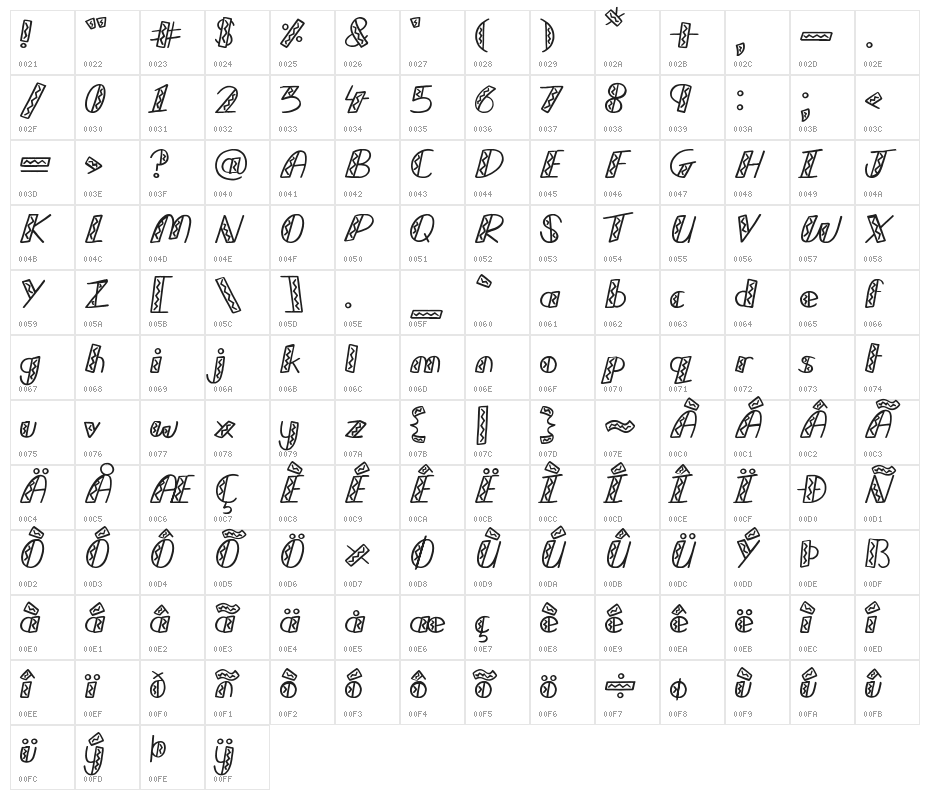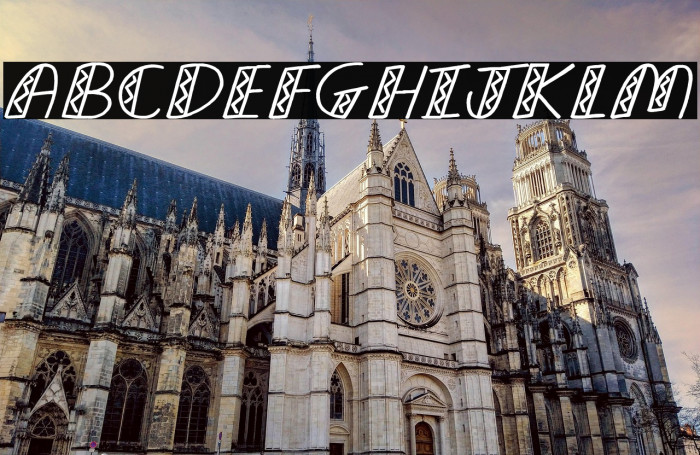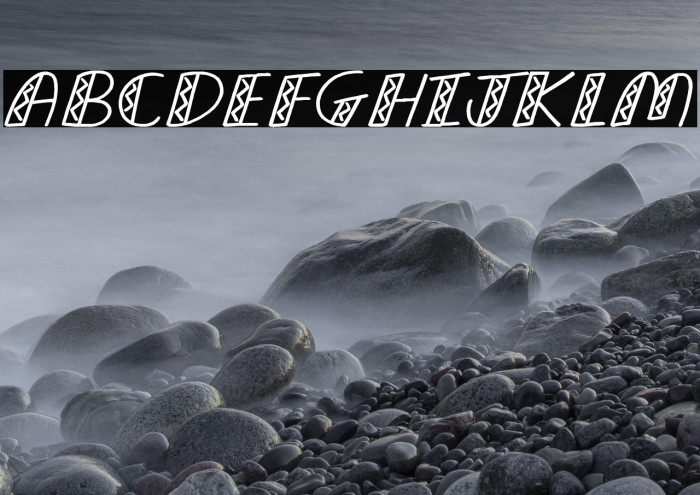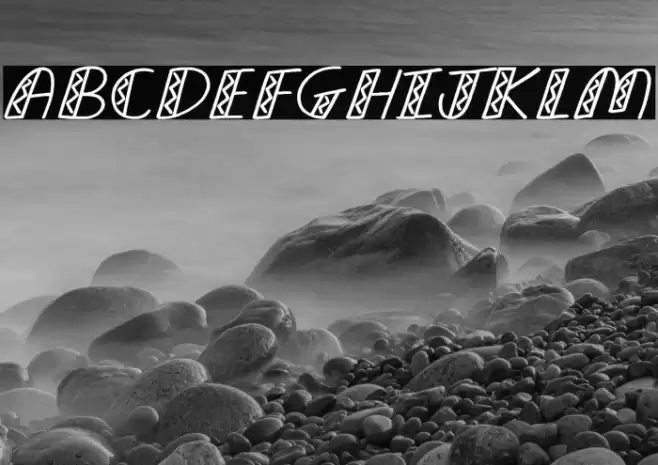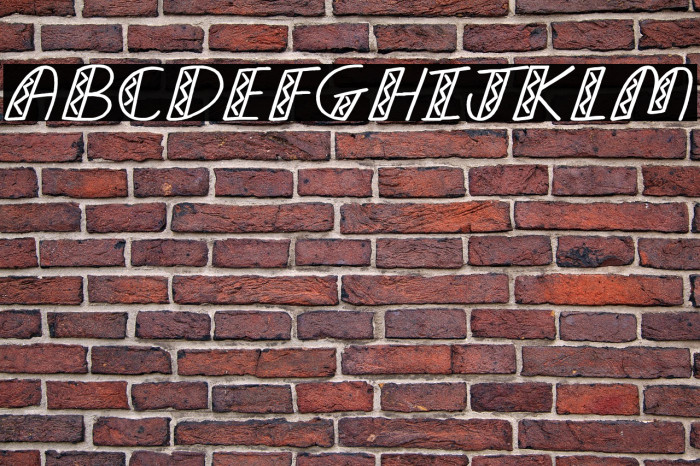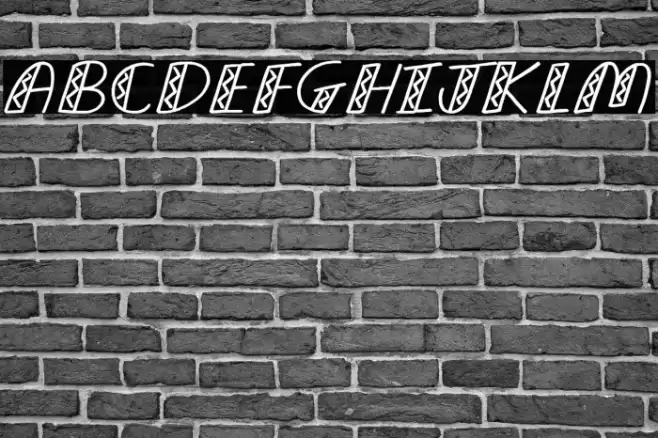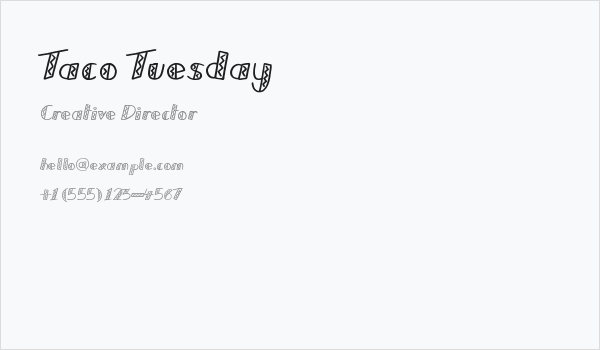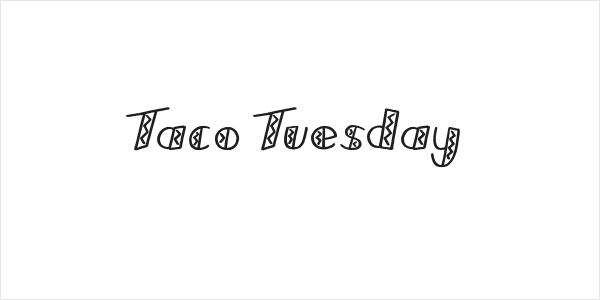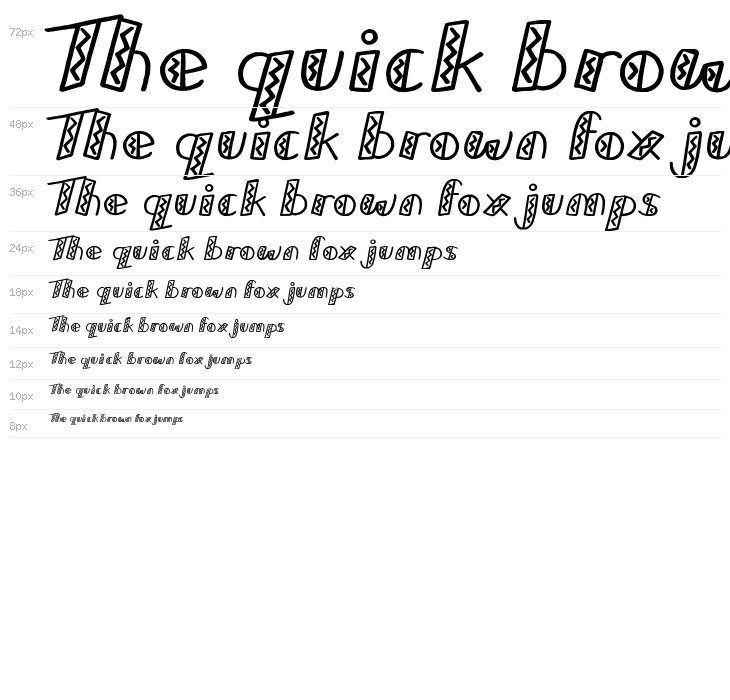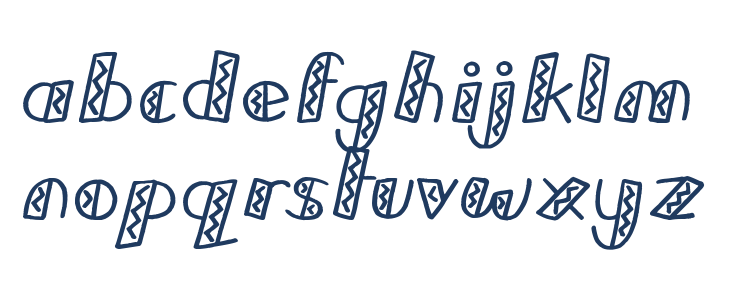
Taco Tuesday Font
Taco Tuesday Description
This font features a playful and decorative style, characterized by its bold, hand-drawn appearance. Each character is uniquely designed with a zigzag pattern that adds a sense of movement and energy. The uppercase and lowercase letters maintain a consistent style, with the uppercase being slightly more pronounced. Numbers and special characters follow the same whimsical design, making the font suitable for creative and informal applications. The overall look is dynamic and eye-catching, perfect for projects that require a fun and engaging typeface.
| Proposed Projects | Ideal for children's books, party invitations, posters, and any project needing a lively and informal touch. |